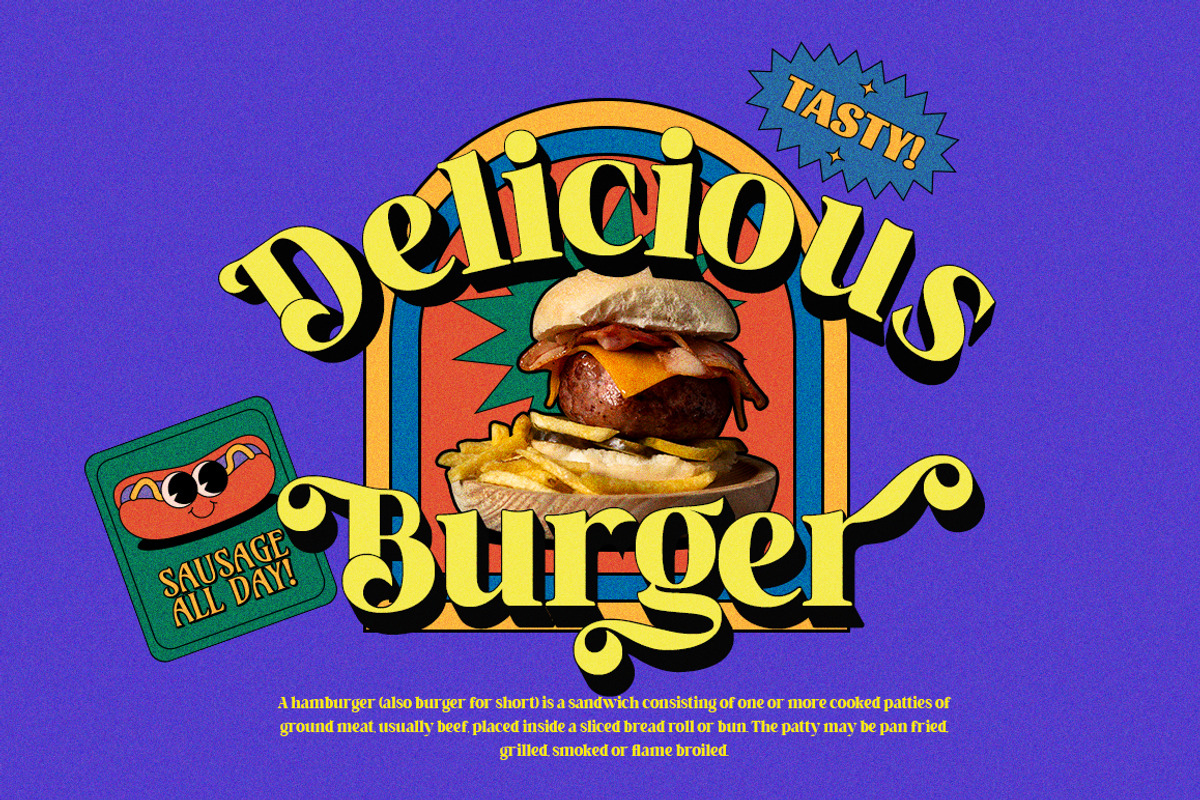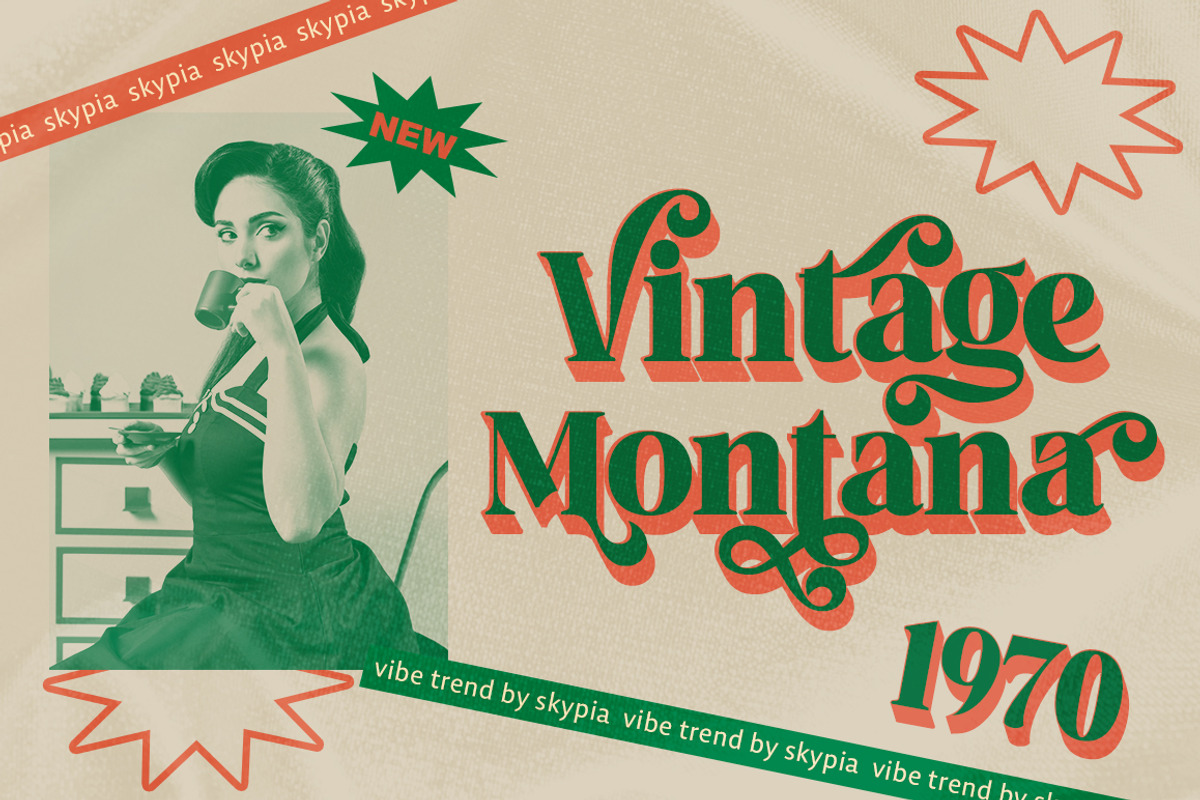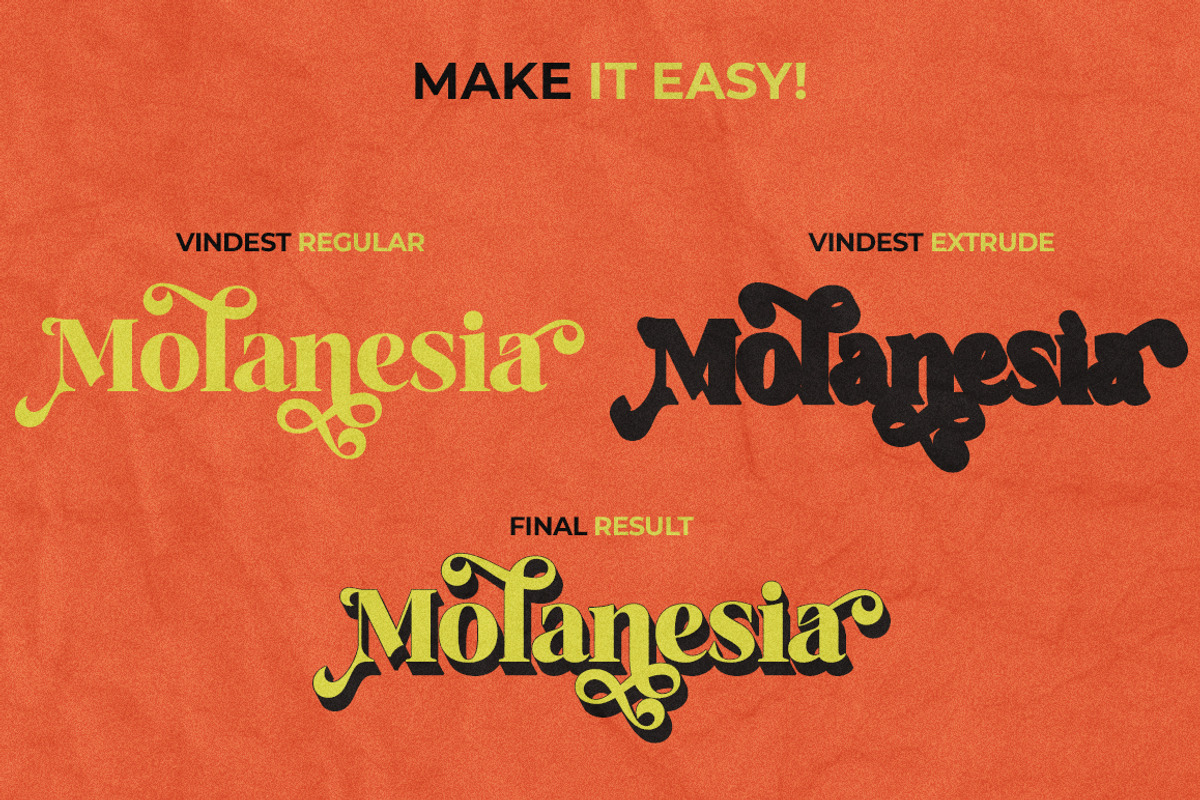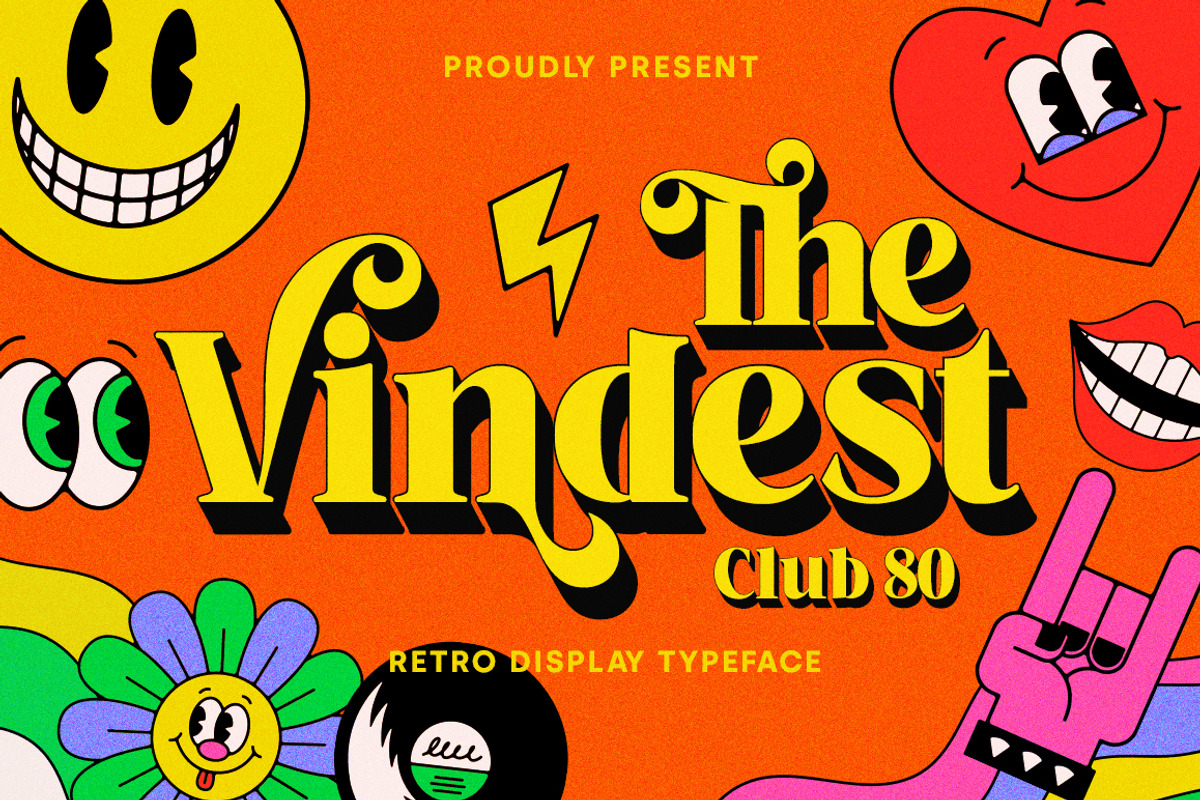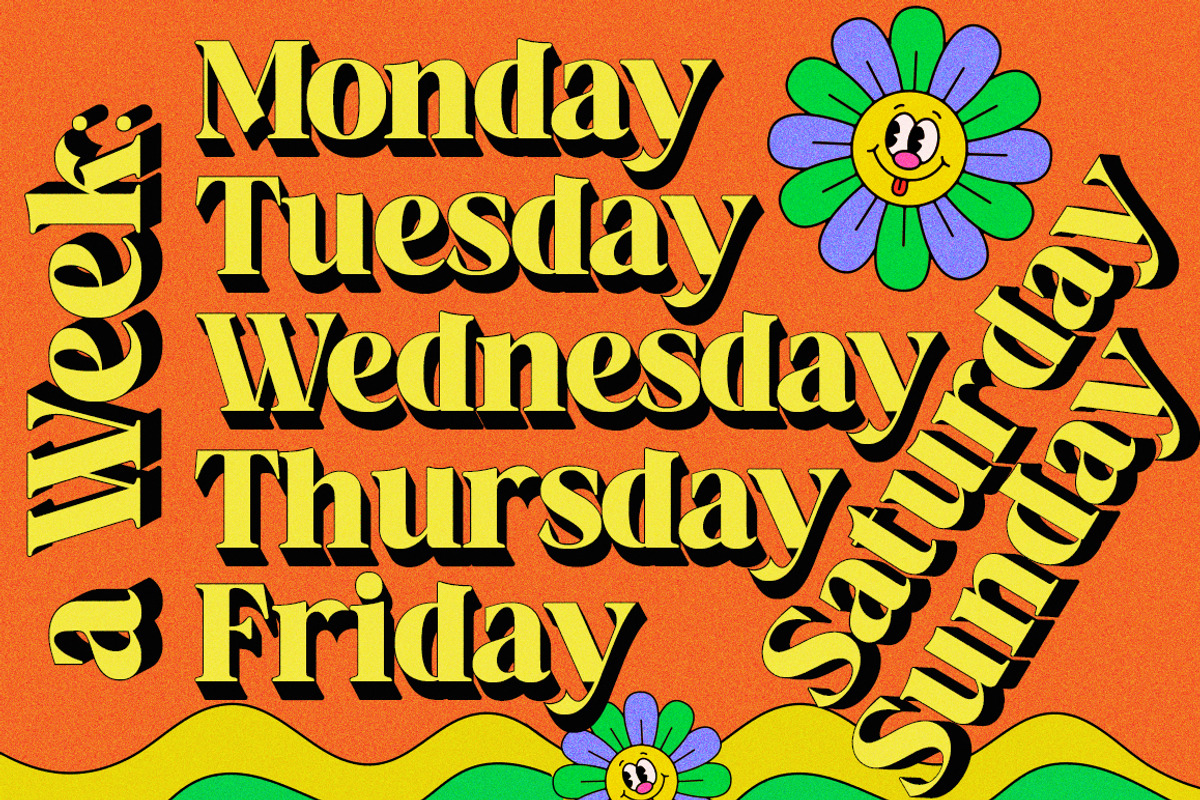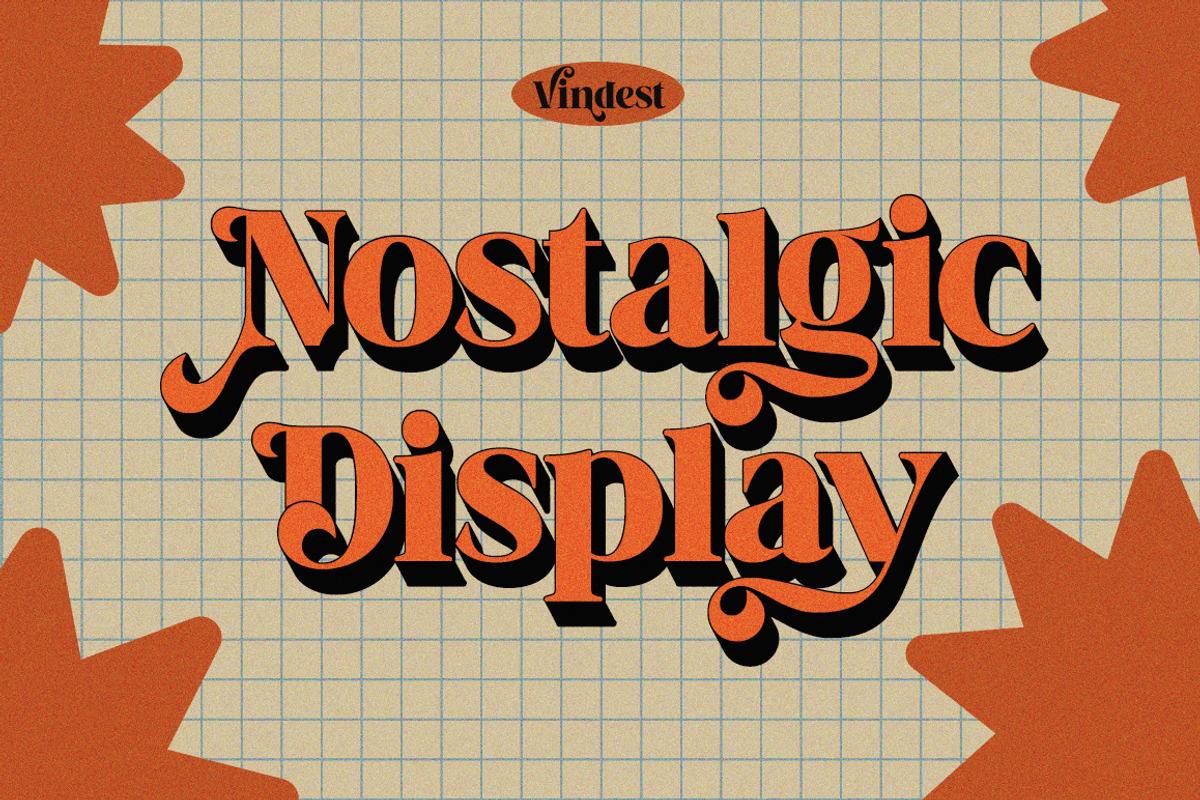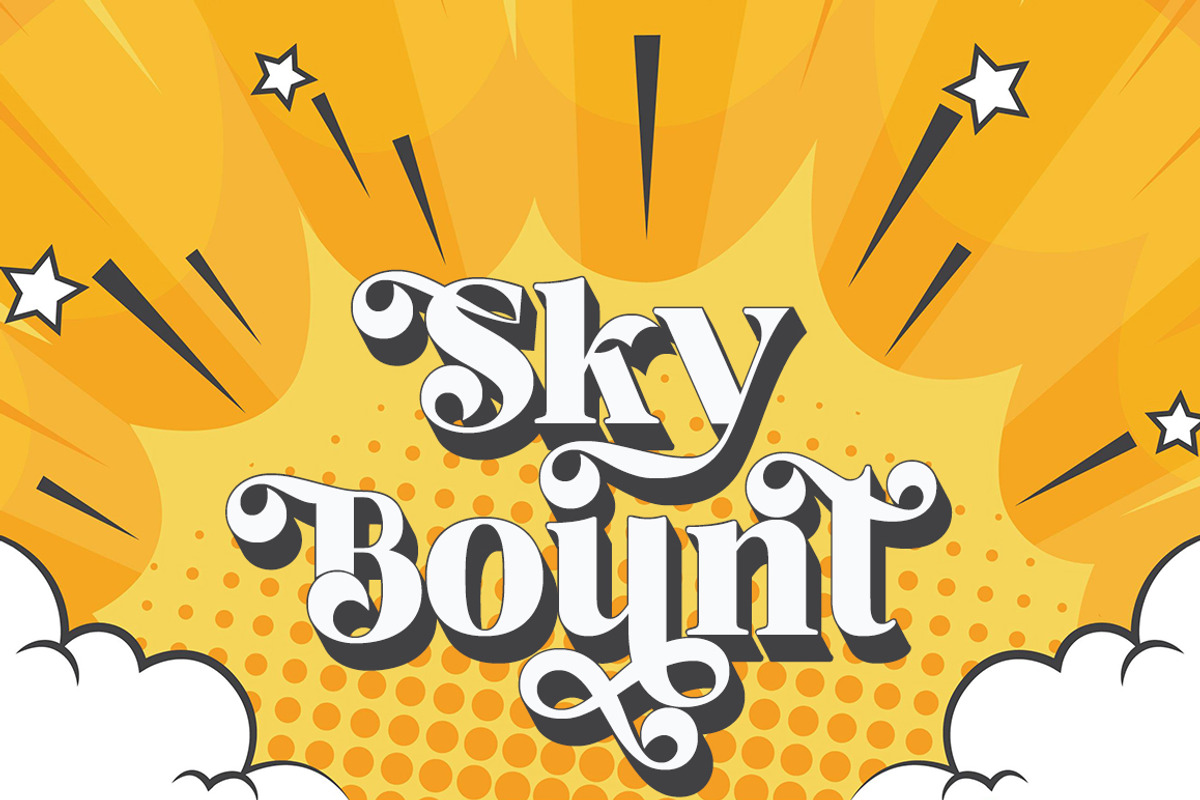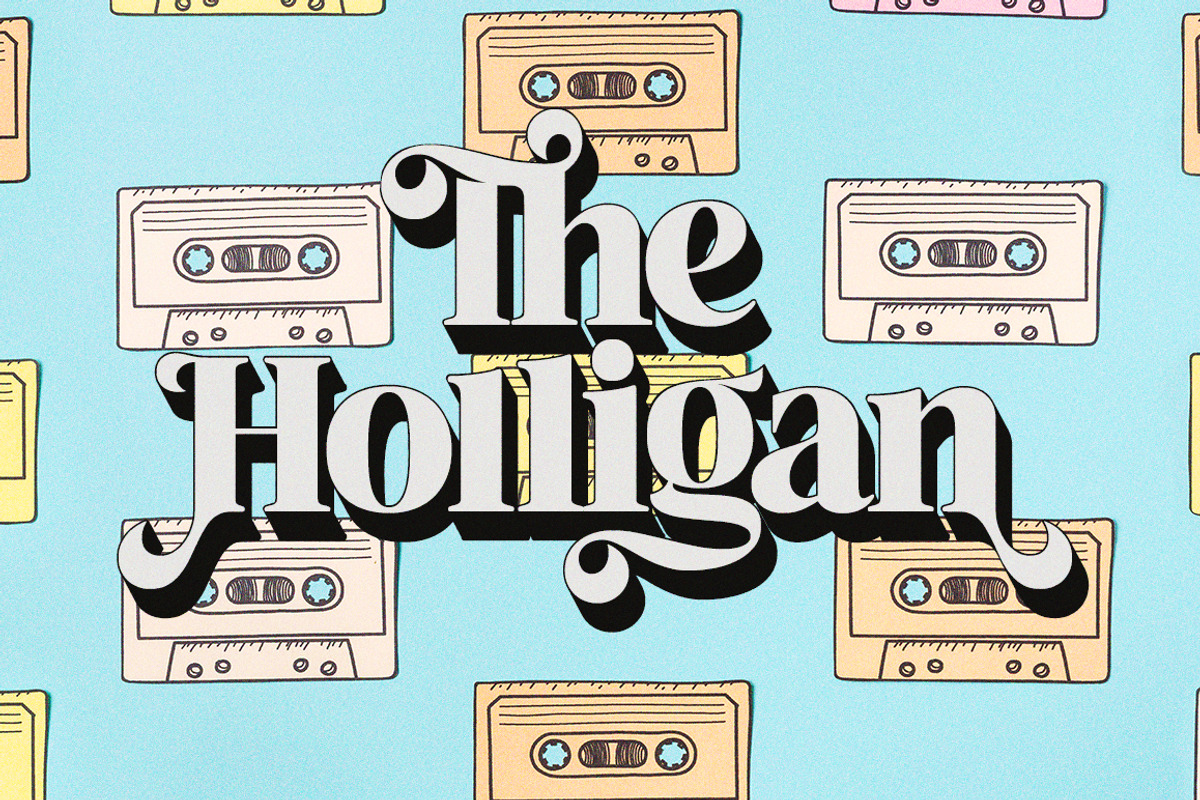
The Vindest
Hello! Let me Introduce you my latest font creation called The Vindest !
The Vindest is a bold retro font with a lot of alternate glyphs. This font is perfectly match for groovy retro and vintage design. The Vindest font is also usable in a wide range of works such as logos, covers, posters, quotes, product packaging, merchandise, social media and much more! Use this font and let your creativity vibing!! Feature :
- Ligature & Alternate glyphs
- Multilingual Language